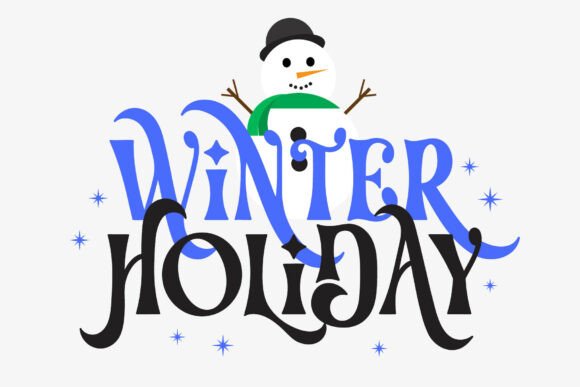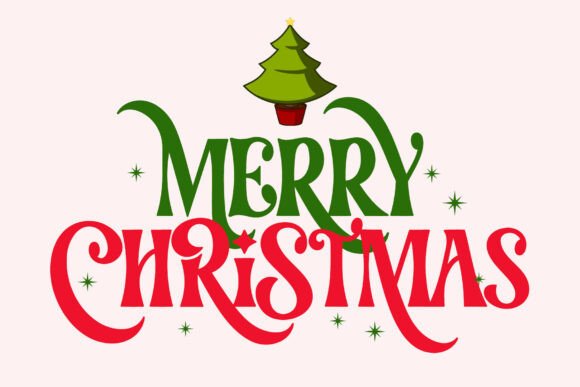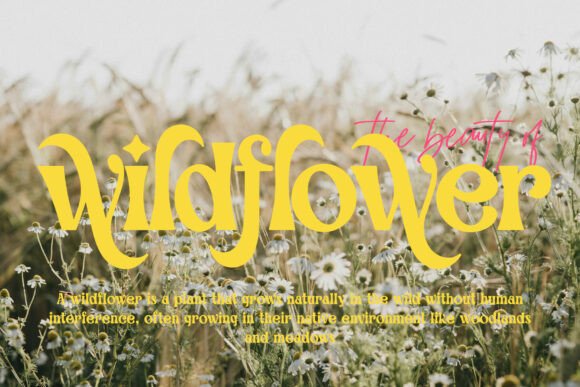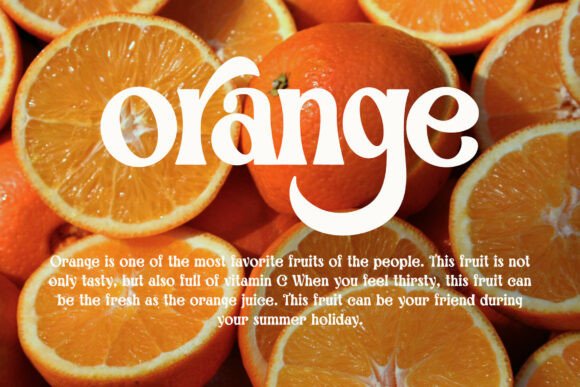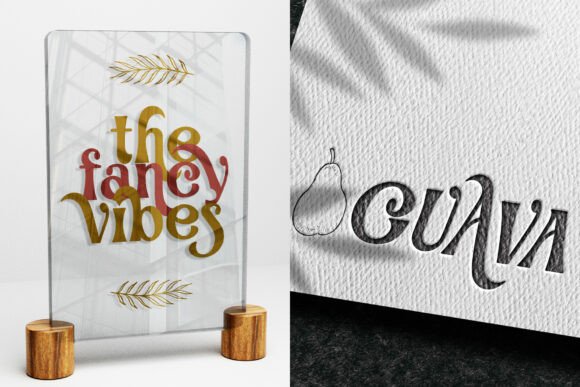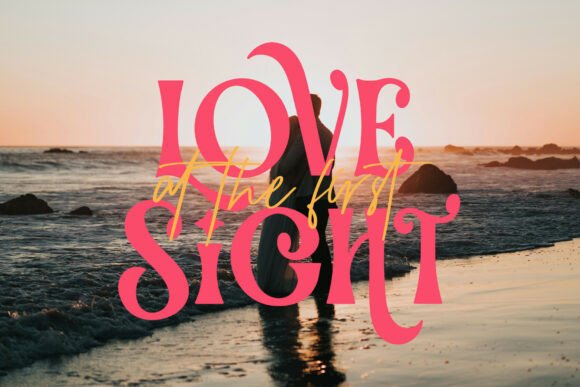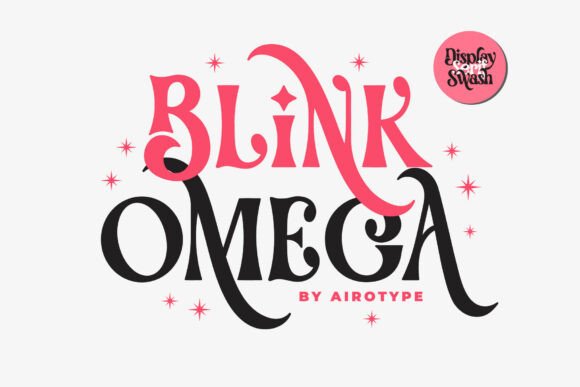
Introducing Blink Omega Font: Elevate Your Designs with Dramatic Flair
In the realm of typography, few fonts manage to strike a balance between classic boldness and modern flair. Blink Omega, a powerful display serif font, achieves this delicate balance with remarkable finesse. This stunning typeface combines chunky, confident serifs with exaggerated, stylized loops and swash elements, making it an incredibly ornate and eye-catching addition to any design project.
A Unique Typeface with Retro-Pop Energy
The dual-color, high-impact presentation of Blink Omega in its preview showcases its glamorous, retro-pop energy. This font is a maximalist’s dream, offering an impressive collection of standard characters, numerals, and numerous OpenType swashes and alternates. These features allow designers to create custom, bespoke lockups that are sure to dazzle their audience.
Design Features and Capabilities
Blink Omega boasts a range of design features that make it exceptionally versatile and suitable for various applications:
• Chunky, Confident Serifs: The font’s serifs are bold and assertive, providing a solid foundation for its dramatic flair.
• Exaggerated, Stylized Loops and Swashes: These elements add a touch of elegance and sophistication, making Blink Omega perfect for designs that require a bit of luxury and glamour.
• High-Contrast Letterforms: The contrast between thick and thin strokes gives the font its distinctive, eye-catching appearance.
• OpenType Swashes and Alternates: With a wide range of swashes and alternates, designers can experiment with different styles and create unique, customized text.
Ideal Applications for Blink Omega
Given its distinctive characteristics, Blink Omega is particularly well-suited for designs that demand attention and exude a sense of drama and uniqueness. Some ideal applications include:
• Glamorous Fashion and Beauty Branding: The font’s luxurious feel and retro-pop twist make it perfect for high-end fashion and beauty brands looking to make a statement.
• Music Festival Posters: Blink Omega’s bold, eye-catching design is sure to stand out in promotional materials for music festivals and concerts.
• Retro-Inspired Event Invitations: For events with a vintage or retro theme, Blink Omega can add a touch of nostalgia and glamour.
• High-Impact Magazine Editorials: The font’s dramatic flair makes it suitable for magazine covers and editorials that aim to capture readers’ attention.
• Logotypes Demanding Drama and Uniqueness: Blink Omega can help brands stand out with a distinctive and memorable logo.
Why Choose Blink Omega?
Blink Omega offers a unique combination of classic boldness and contemporary flair, making it an excellent choice for designers and crafters looking to elevate their projects. Here are a few reasons why Blink Omega stands out:
• Attention-Grabbing: Its dramatic design ensures that Blink Omega grabs attention and makes a lasting impression.
• Versatile: With its wide range of swashes, alternates, and design features, Blink Omega can be adapted to various design needs.
• Unique: The font’s distinctive blend of vintage and modern elements makes it a standout in any design.
Blink Omega is more than just a font; it’s a statement piece for your designs. Its unique blend of classic boldness and dramatic, contemporary flair, combined with its versatility and attention-grabbing capabilities, make it an invaluable asset for designers and crafters. Whether you’re working on glamorous fashion branding, music festival posters, or any project that demands a bold, stylized aesthetic, Blink Omega is sure to dazzle your audience and elevate your designs to new heights.